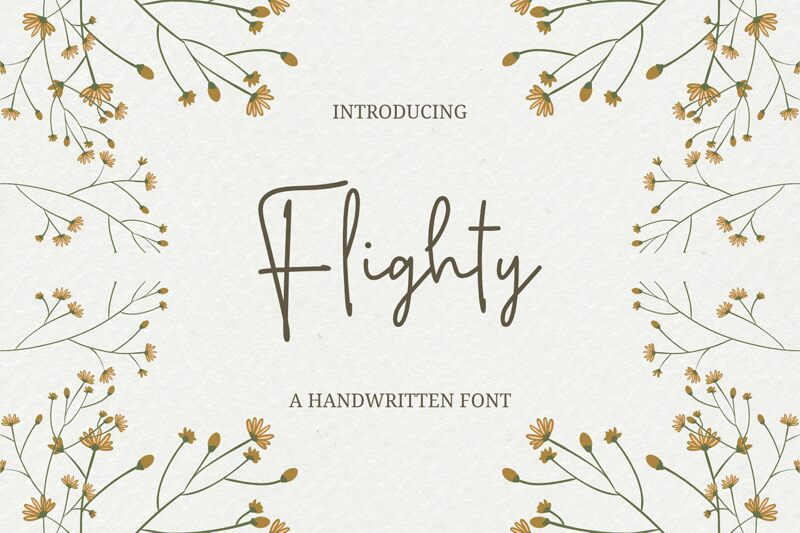
Flighty Regular
Flighty, a captivating handwritten font by Niskala Huruf, adds an enchanting touch to your projects. With its light weight, Flighty exudes elegance and grace, perfect for wedding invitations and delicate stationery. Its flowing curves and whimsical strokes make it ideal for children's books and playful designs. Whether you're creating a charming logo or crafting a dreamy blog post, Flighty will effortlessly capture attention with its unique charm. Let this delightful font take flight in your creative endeavors and watch as it adds a touch of magic to any project.